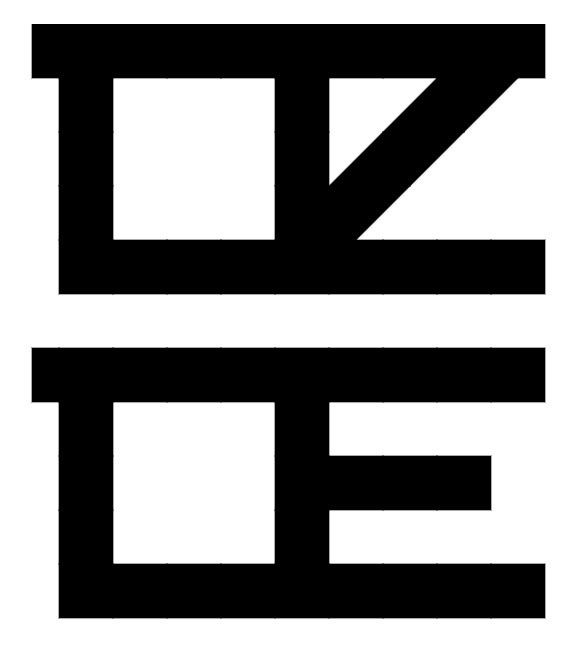
• This one has been cooking for a while, it's one of my oldest designs, based on an old Deftones logo. I have finally managed to update it and found a proper way to work with the diagonals. Basic latin support and a few alternate letters.
This sort of look like the font on an Iron Maiden album. Super cool.
little Œ idea